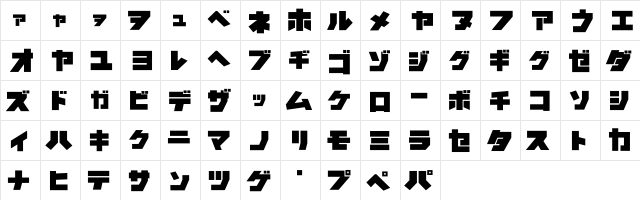
NEURONA Katakana
Design Context for NEURONA Typeface
NEURONA offers clean, dependable letterforms without strong stylistic allegiance, making it a practical choice for designers who need flexibility.